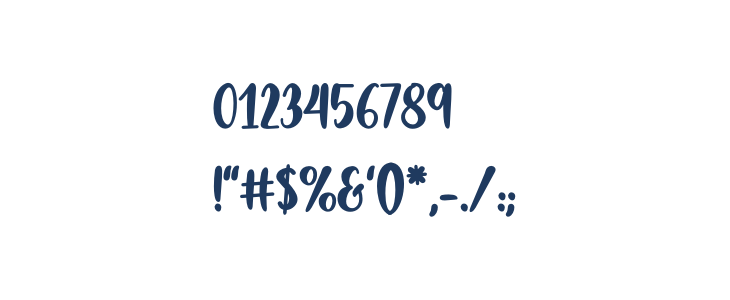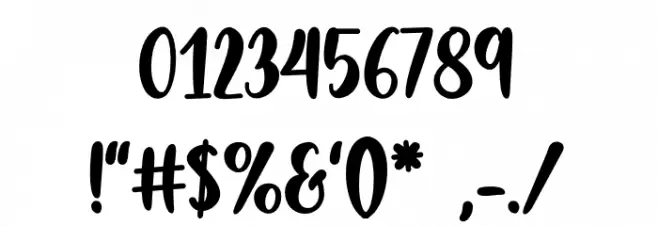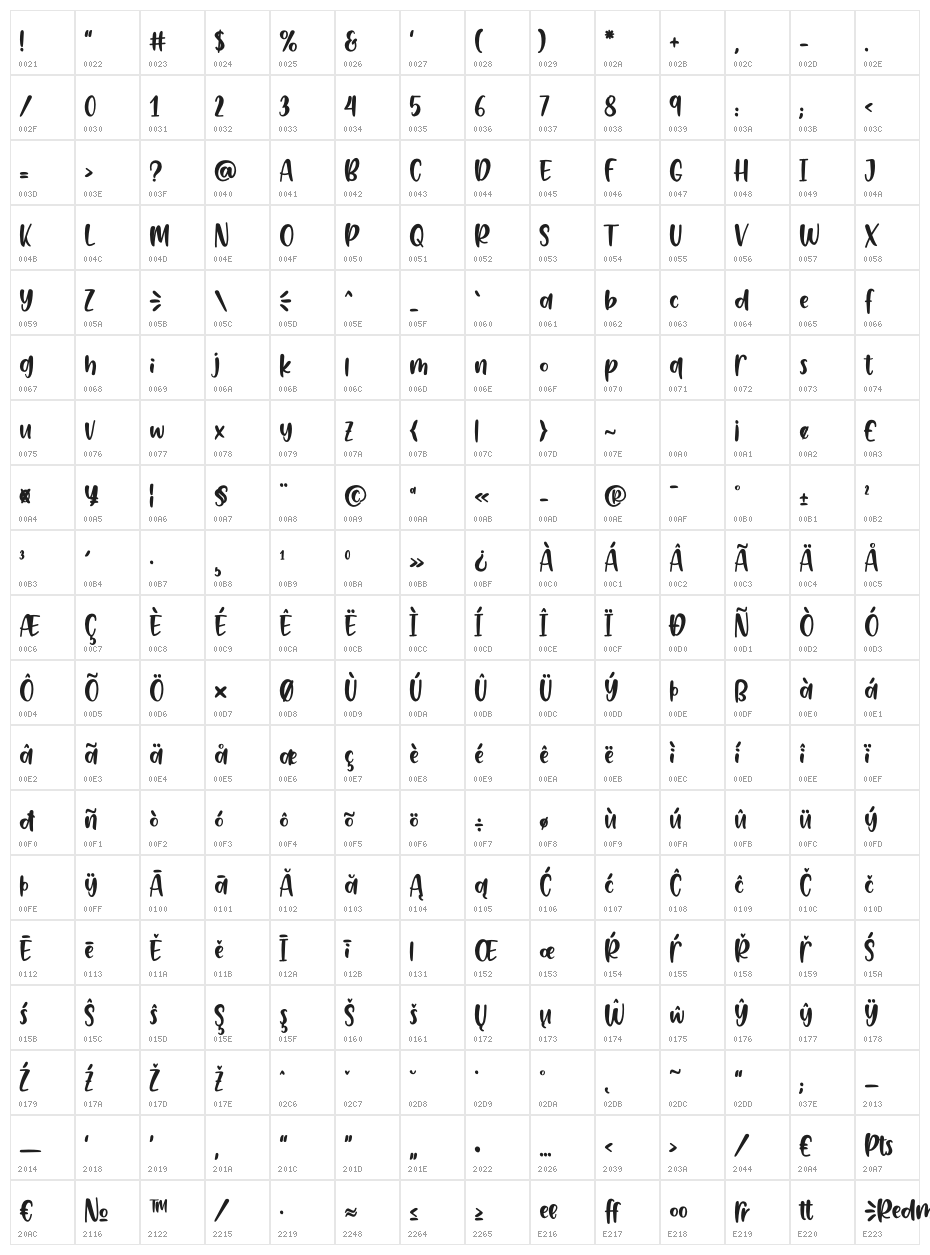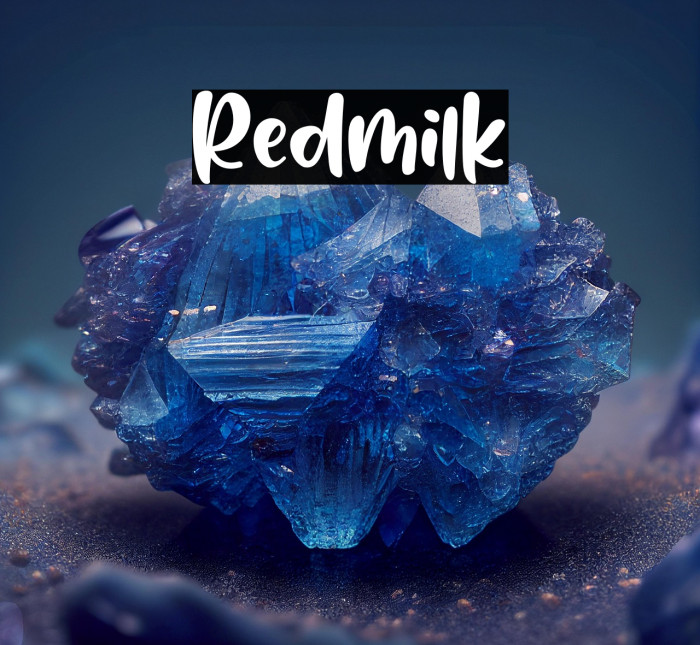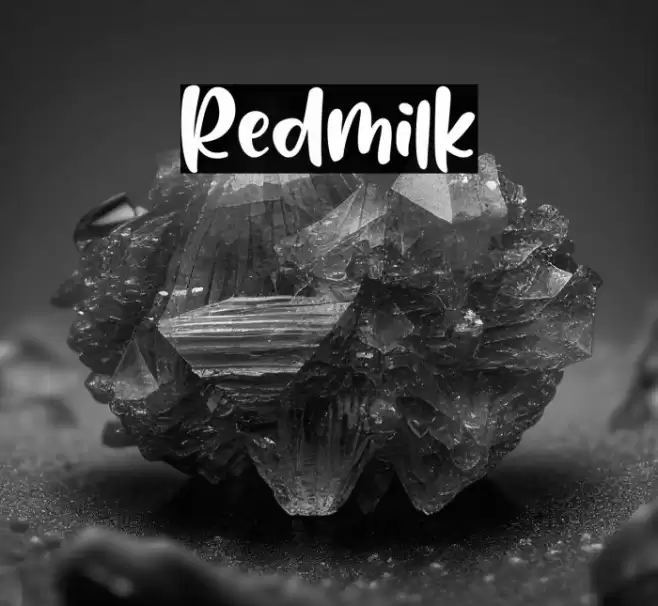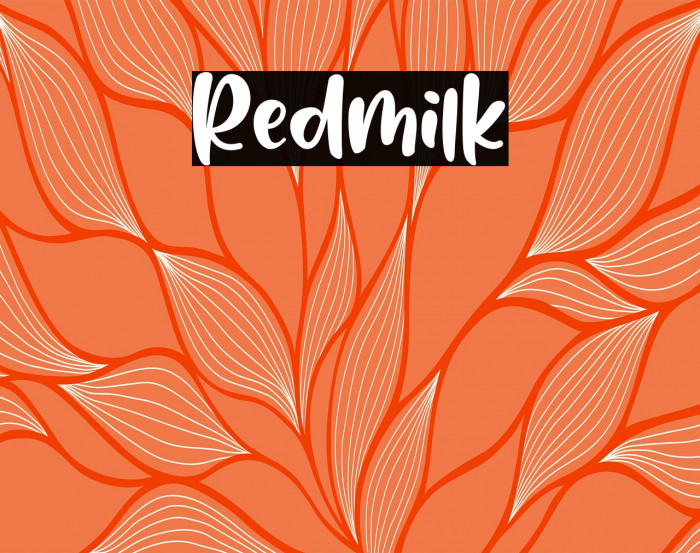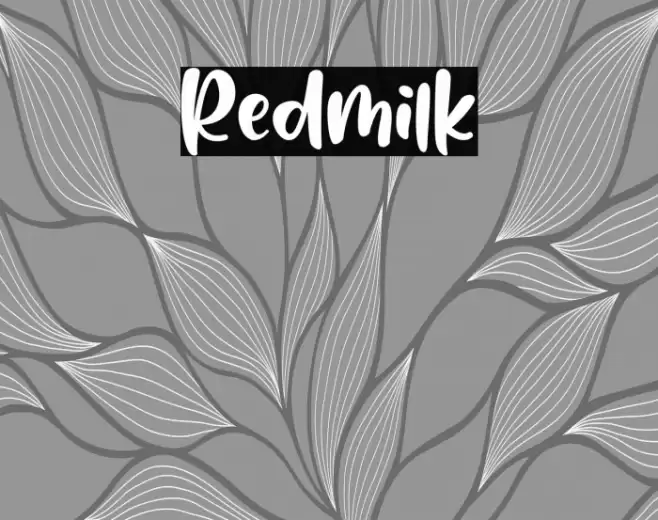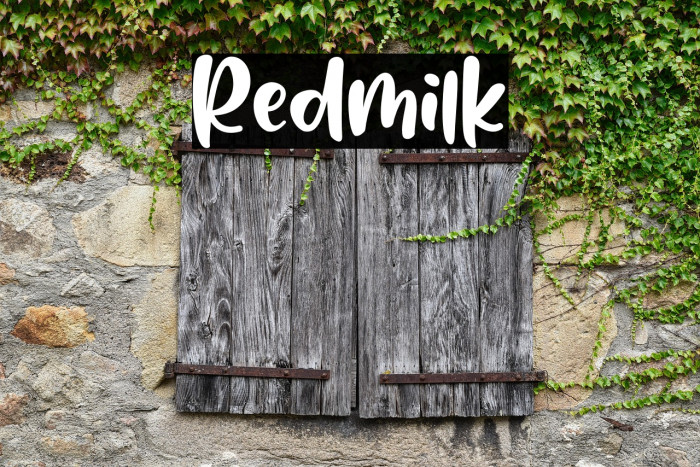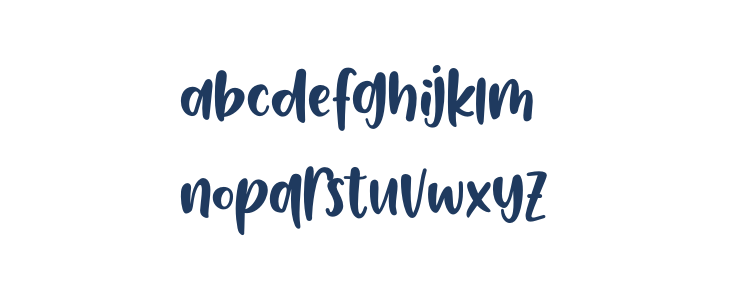
Redmilk Font
Redmilk Description
This font exhibits a playful and energetic style, characterized by its bold and rounded letterforms. The strokes are thick and consistent, giving it a strong presence on the page. Each character has a slightly irregular baseline, adding to its casual and friendly appearance. The uppercase and lowercase letters maintain a cohesive look, with smooth curves and a hand-drawn feel. The numbers and special characters are designed to match the overall aesthetic, ensuring versatility in various design contexts. This font is ideal for projects that require a personal touch, such as invitations, greeting cards, or playful branding.
| Overall Style | Playful, Casual |
| Proposed Projects | Ideal for invitations, greeting cards, playful branding, and creative projects. |